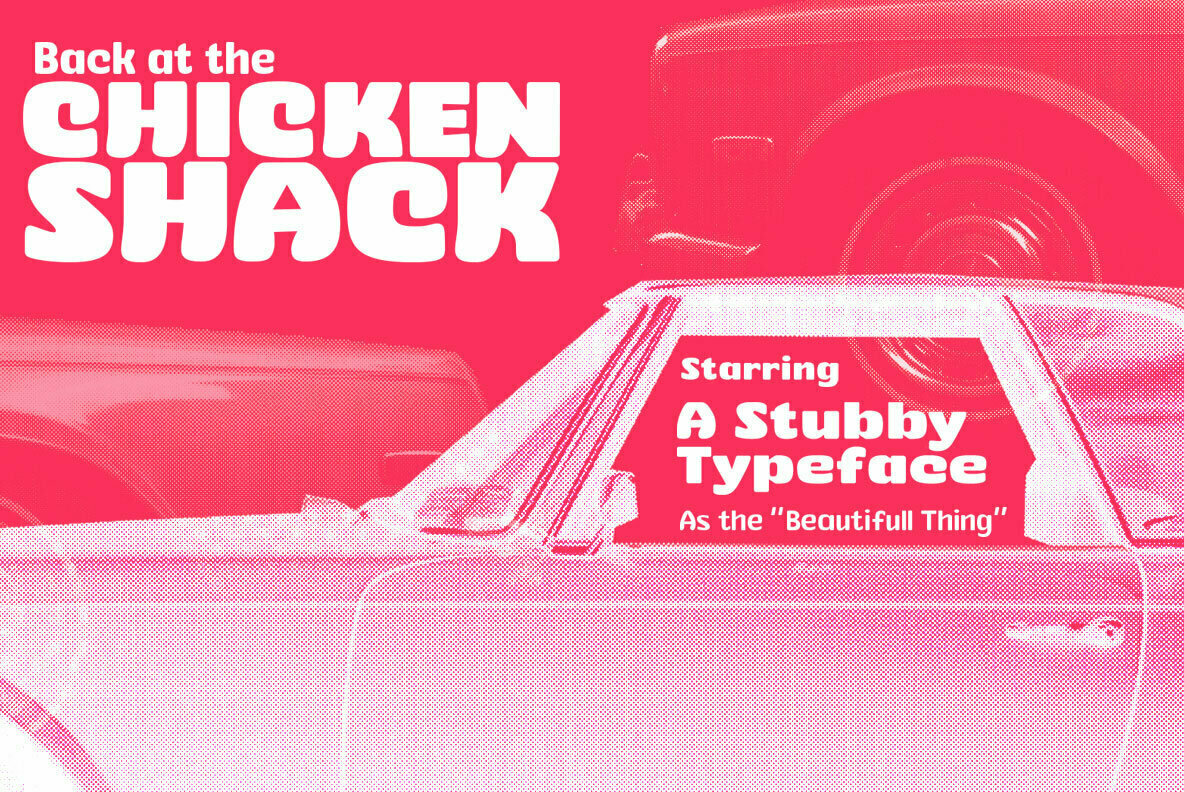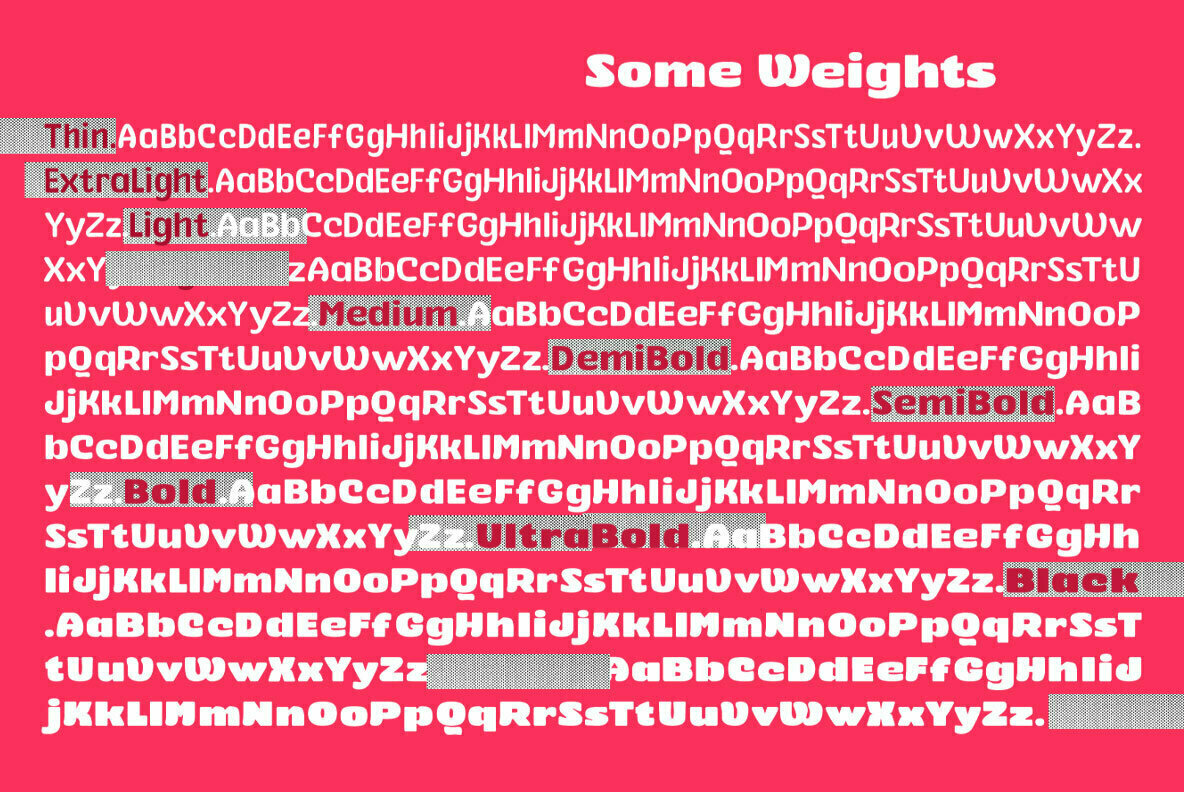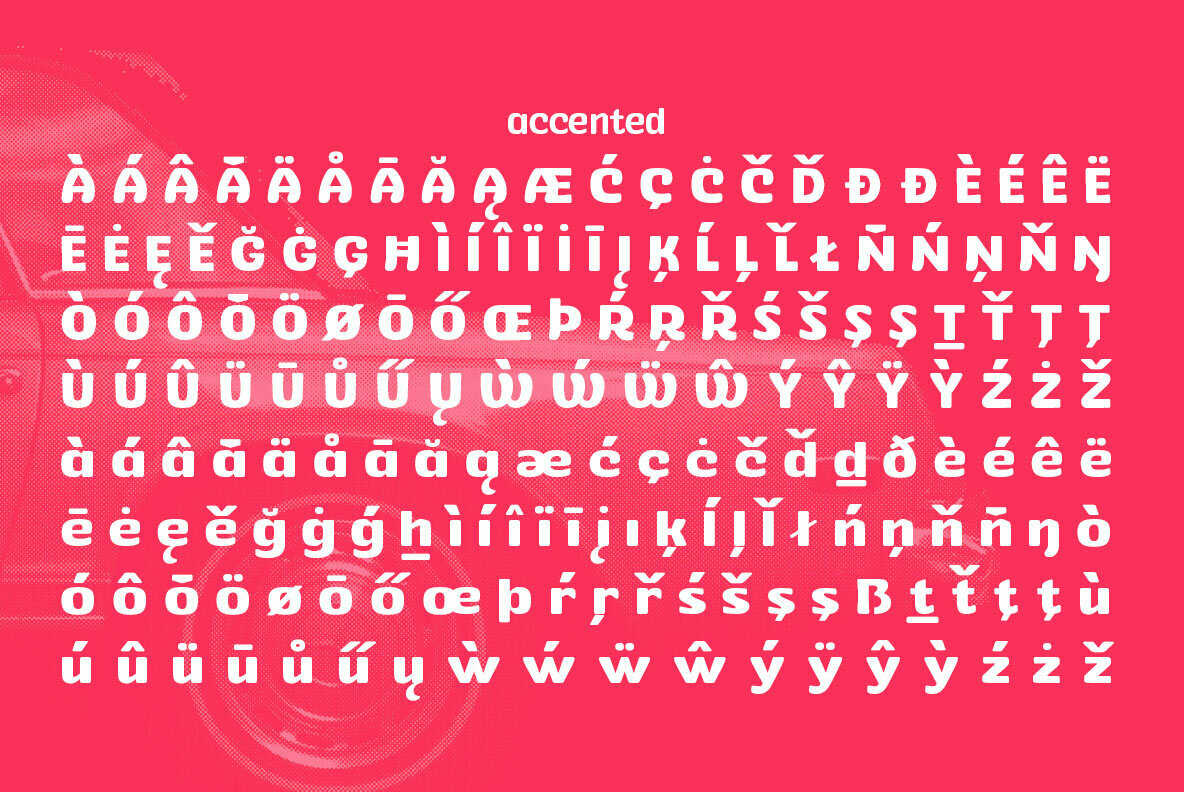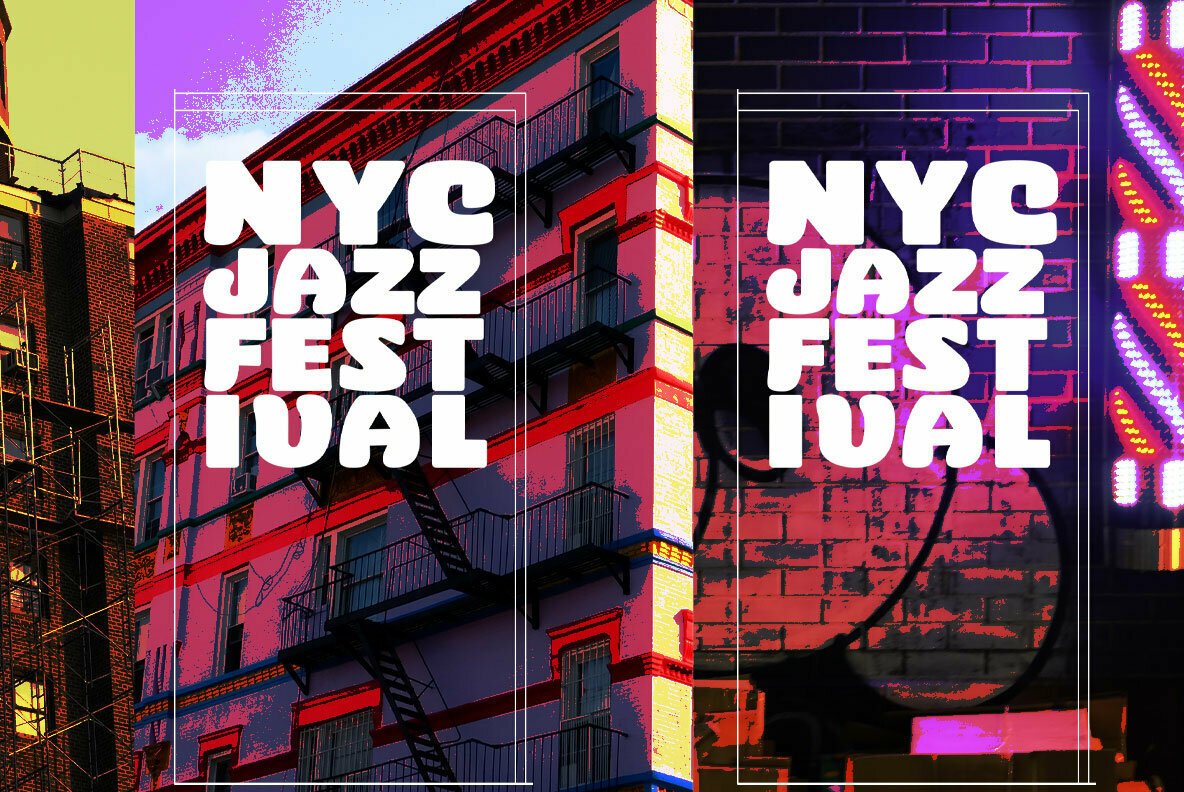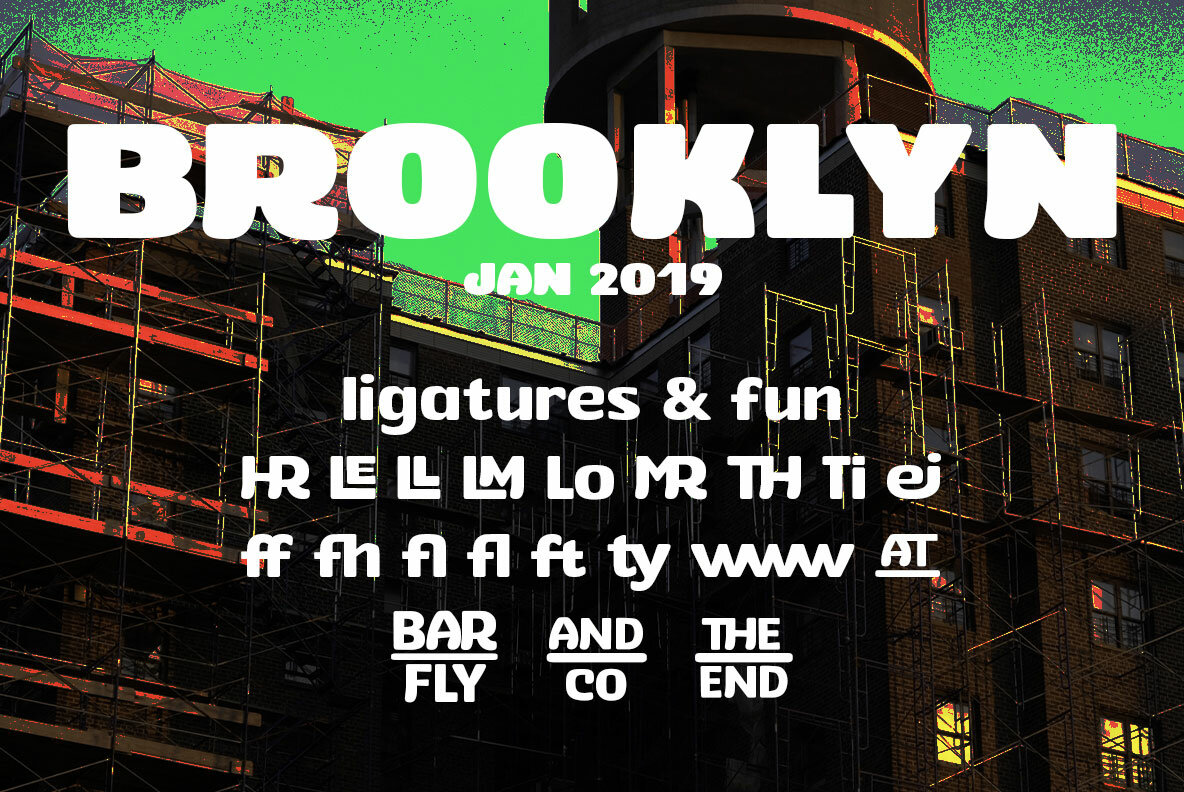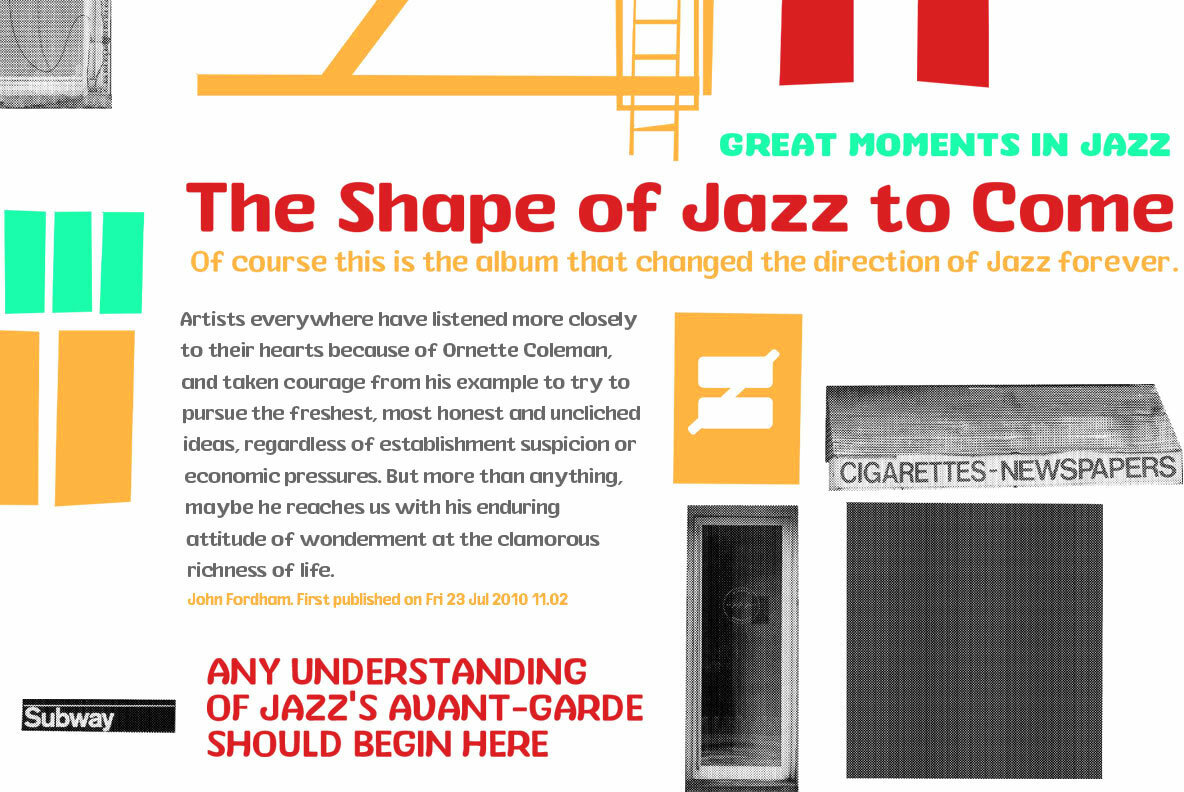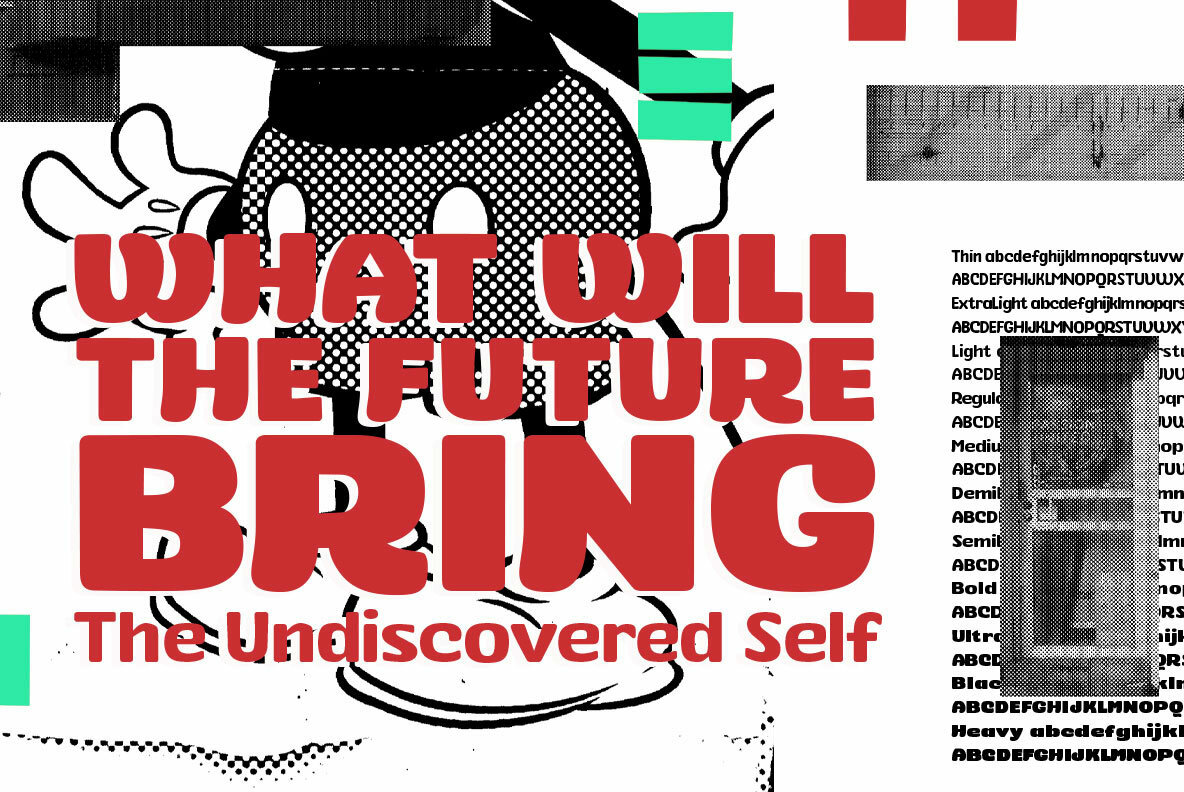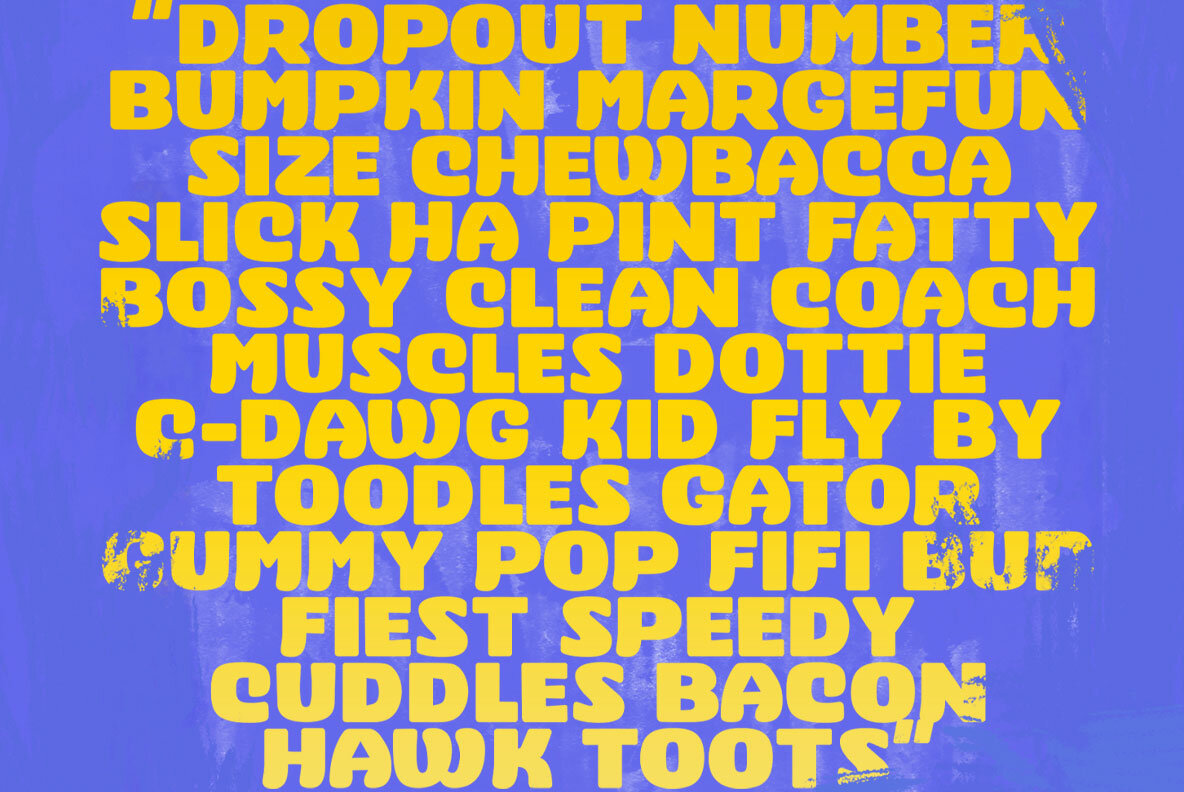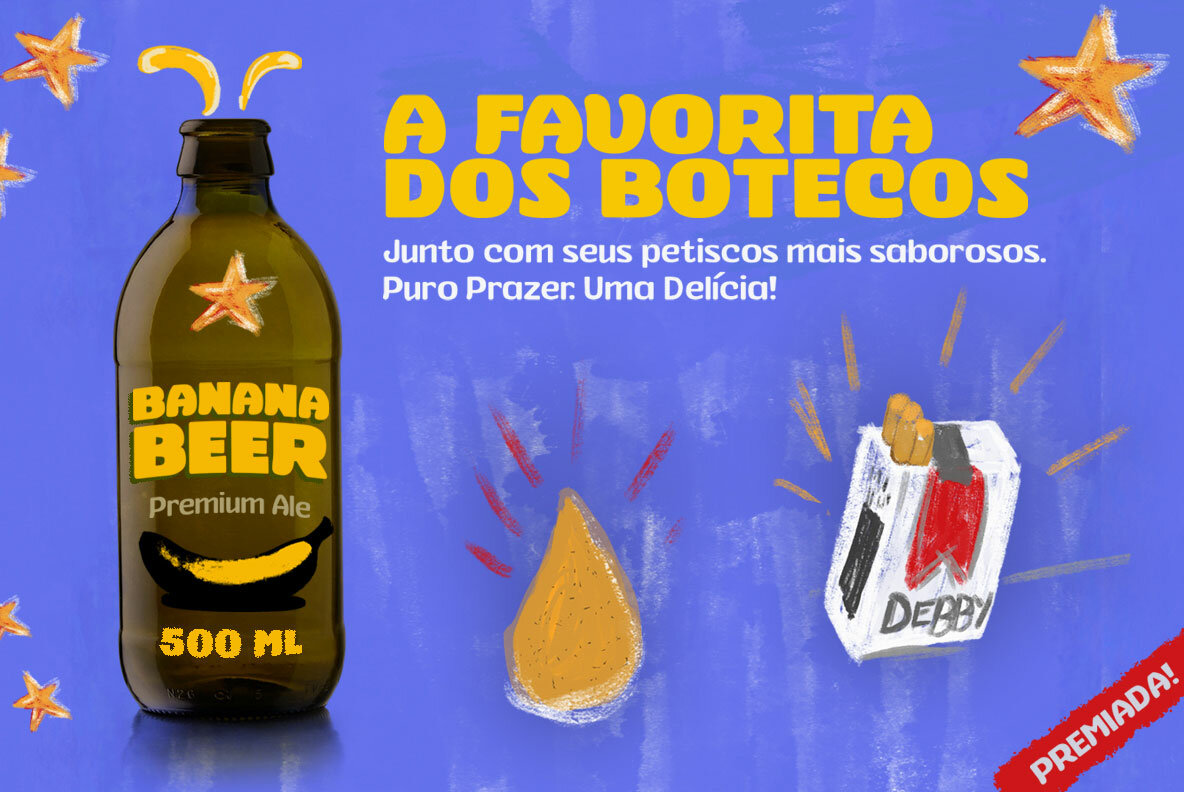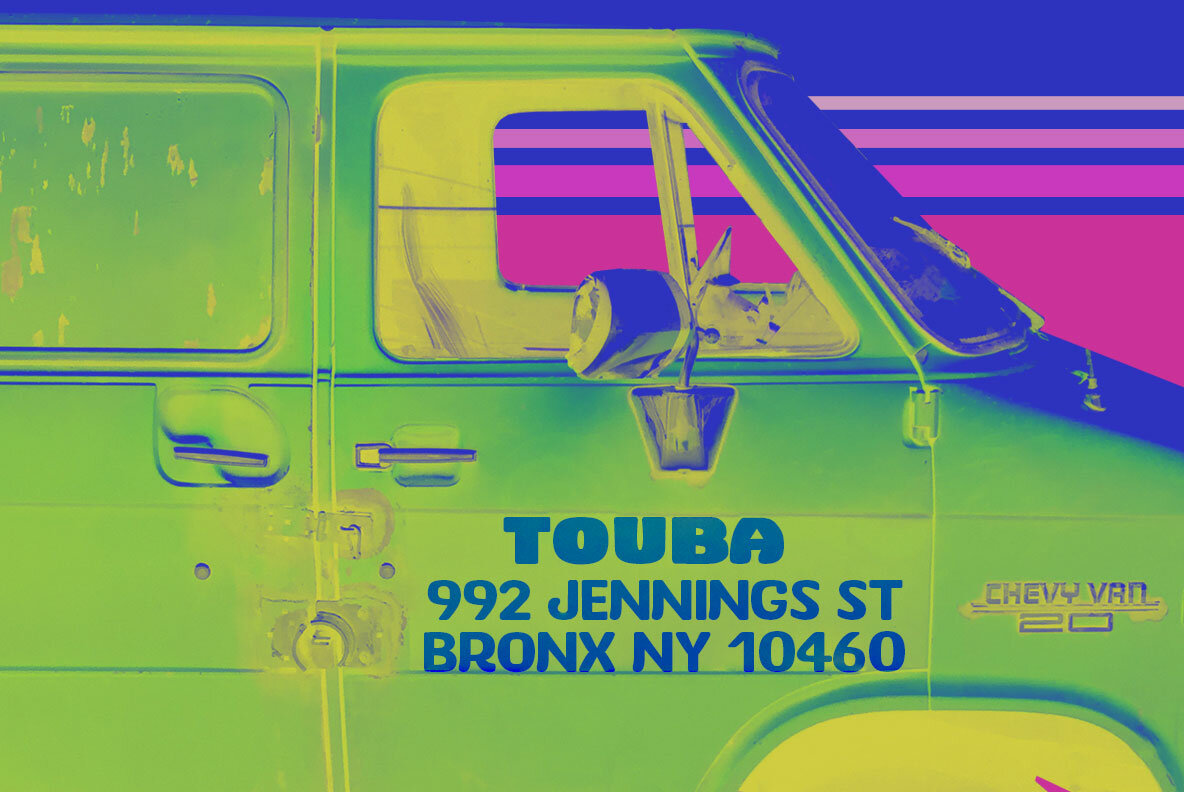
Stubby Font
Stubby is a display type family with 11 styles, inspired by the vernacular landscape. It was made for titles, headlines and also packages, posters and everything that provide space for a rude, fat and widish type. Nonetheless it can be a type for text if you are looking for an informal shape, with eleven styles mixing from a narrowed thin to a sloppy ultrabold. Stubby has a tight spacing looking to fit in squeeze places, trying to simulate some real spirit of the botecos from Brazil, always serving very cold beer in stubby brown bottles.